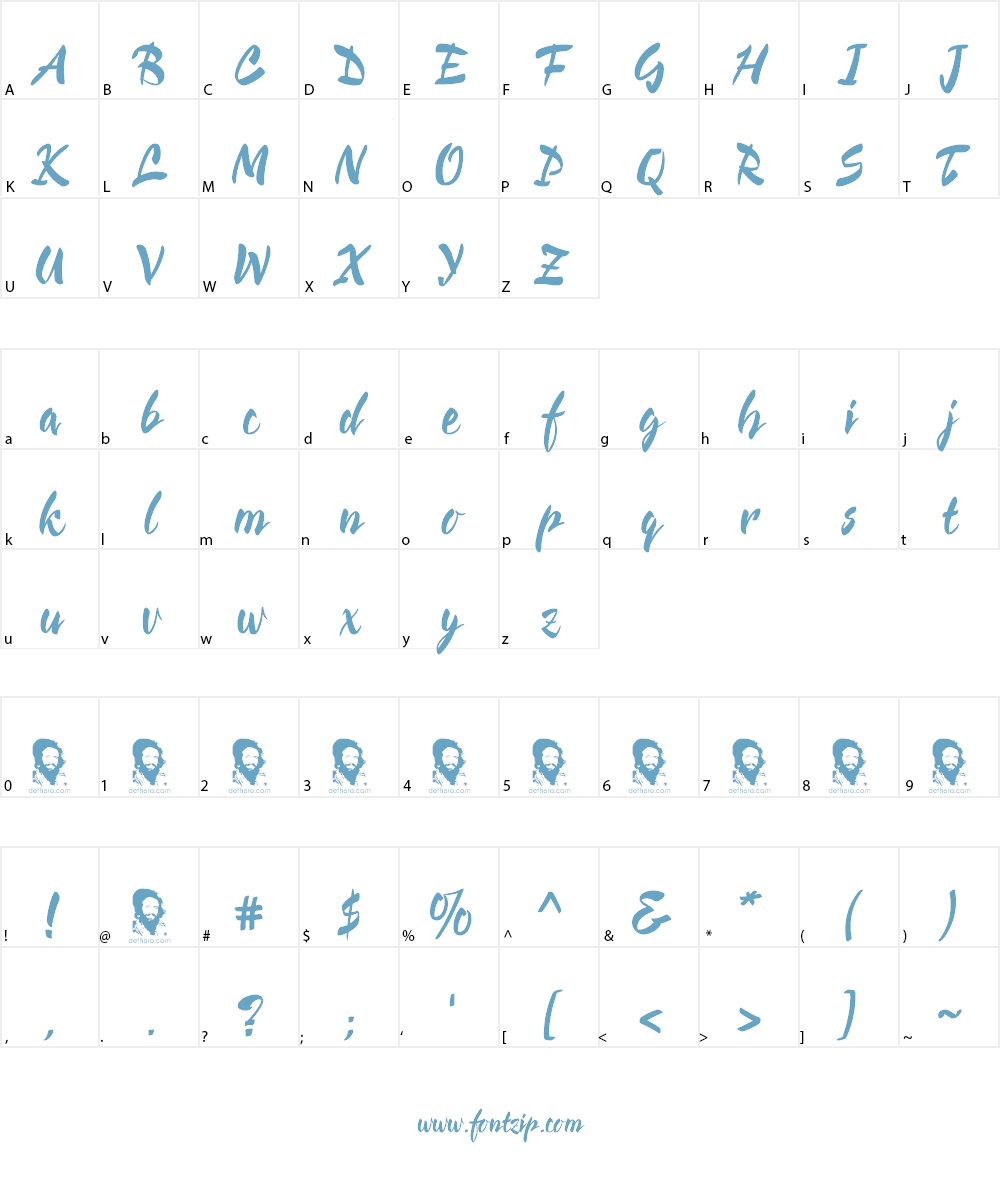
Cienfuegos is a concatenated handwritten font. The name is dedicated to Camilo Cienfuegos, Cuban revolutionary humanist raised in freedom by two Spanish anarchists, their parents.
• Bitcoin symbol (ligatures): b#